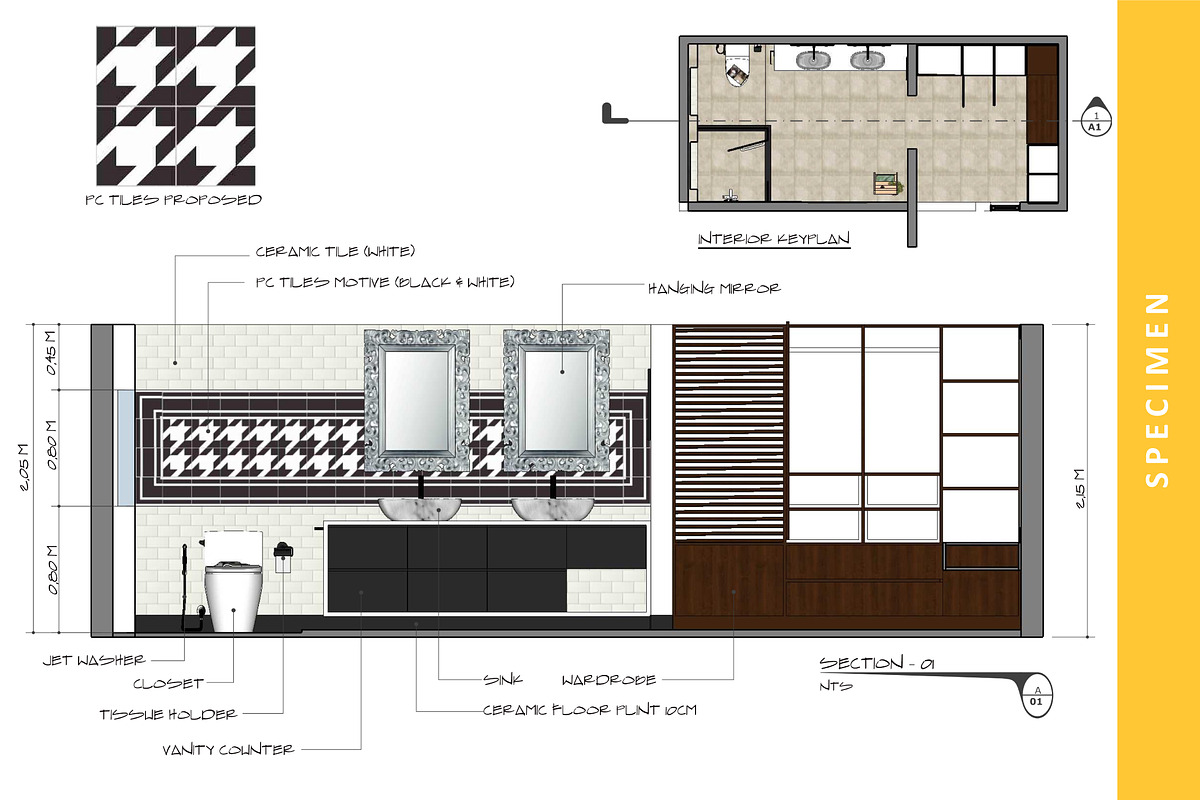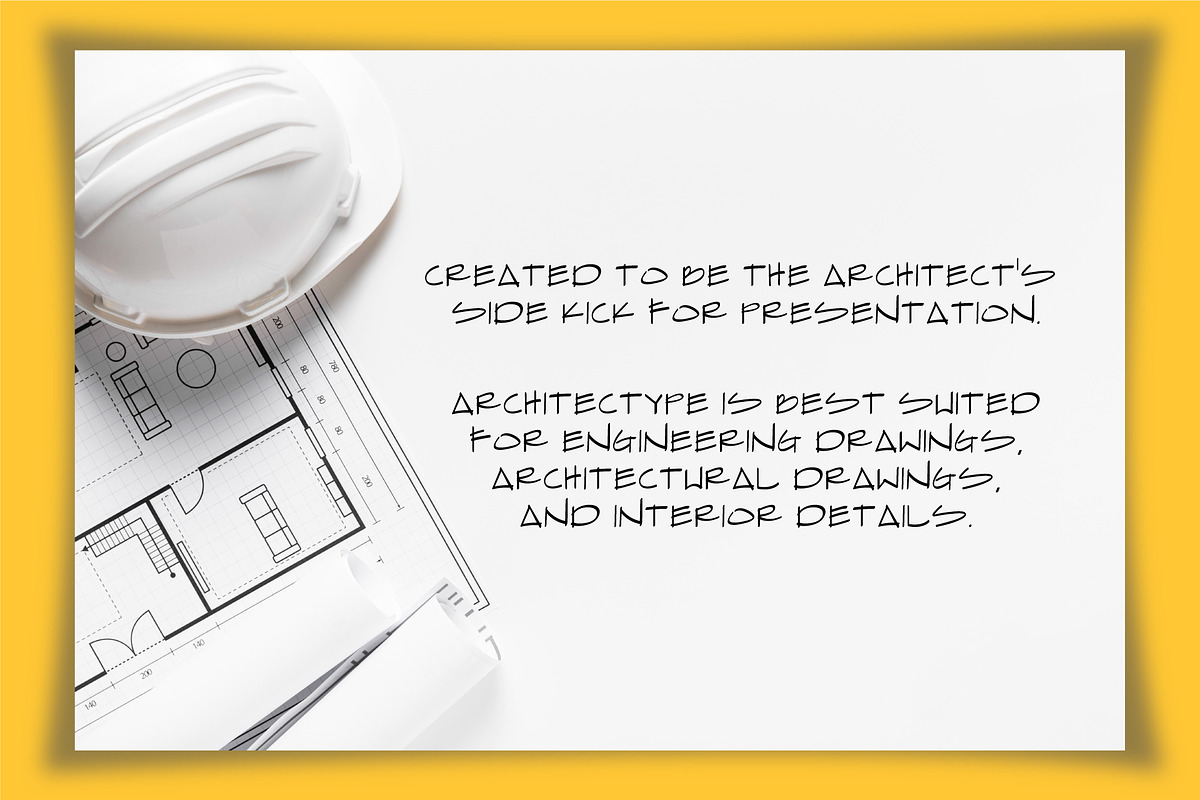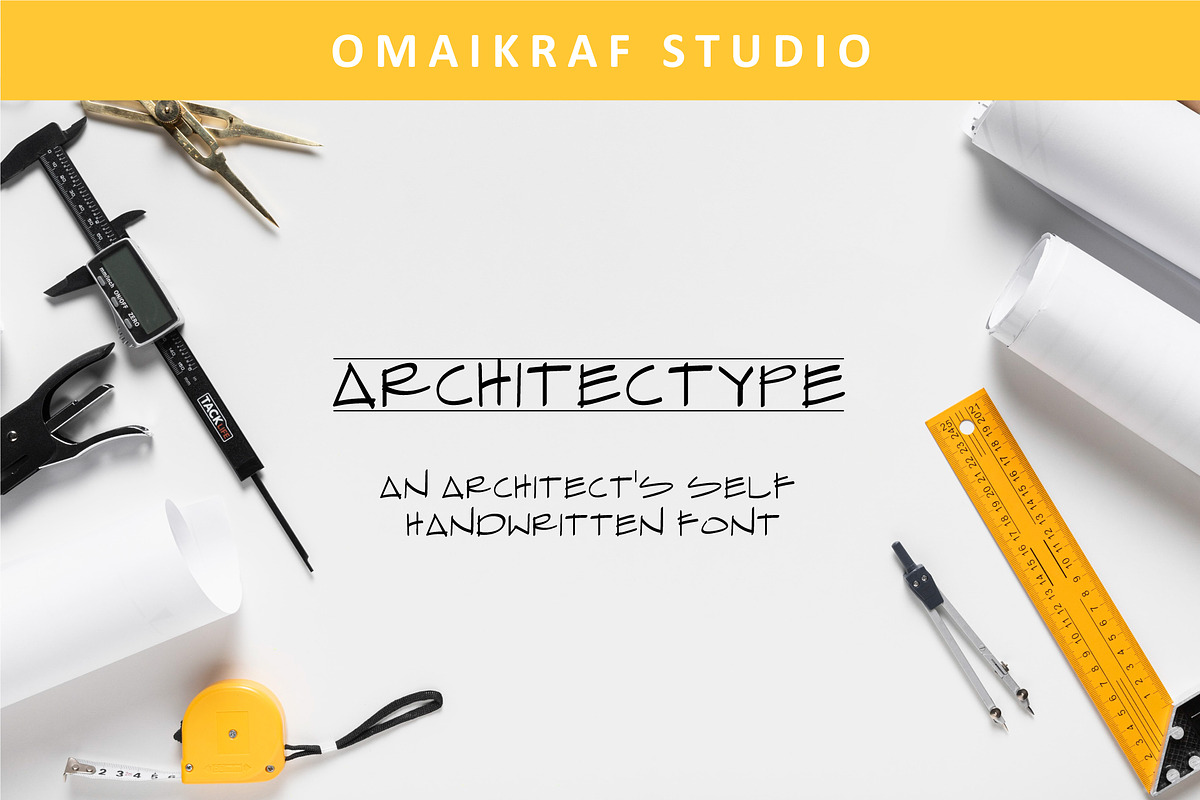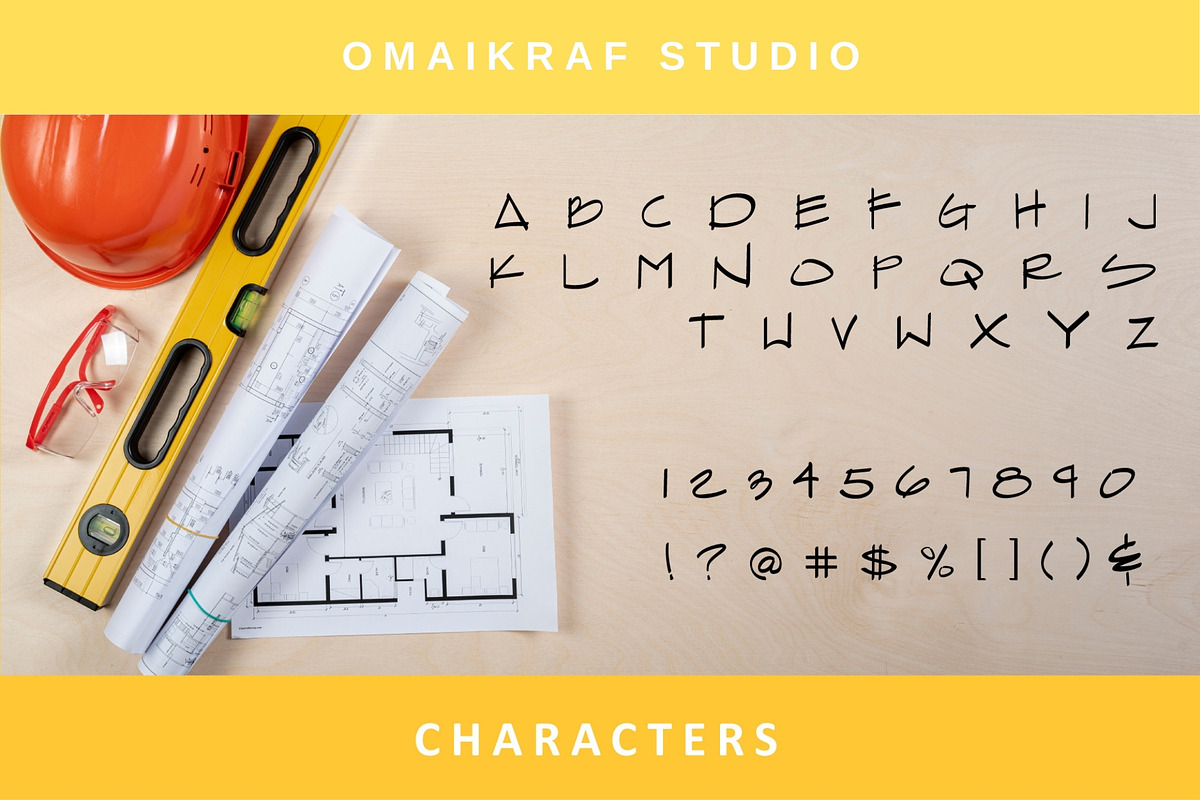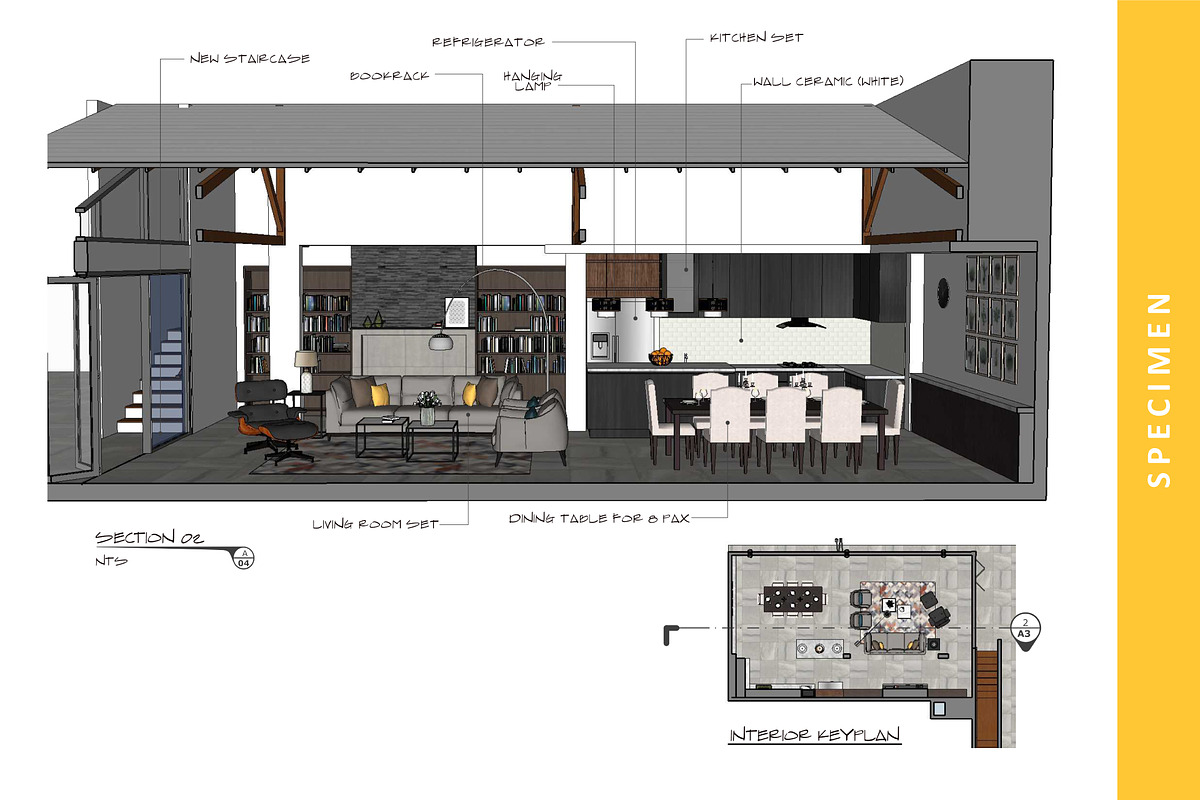
Architectype | Architect's Sidekick
Architectype is a native architect handwritten typeface that is specifically built to achieve a good looking architect-person style in your design. This typeface only available in one character style which is uppercase letters as it represent architect notes on to drawings, presentations, and other notations.
It is highly recommended for designers and architects who would like to add notations, dimensions, and other citation in their drawings. But Architectype also suitable for other presentation design such as labels, flyers, etc.